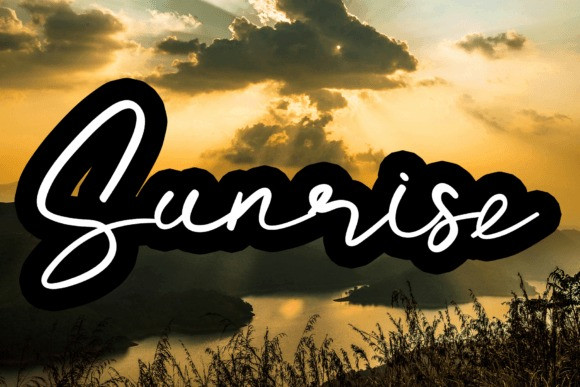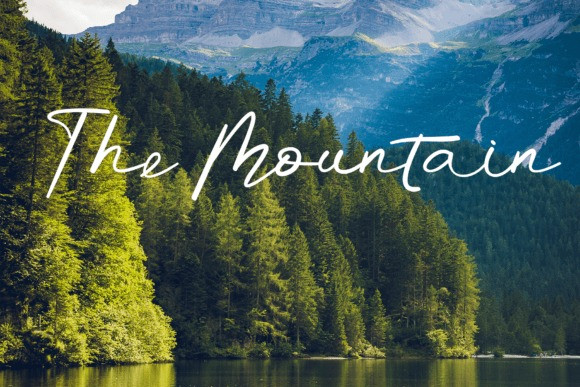
Handmade Summer Font
Handmade Summer Font is a sweet and friendly handwritten font. Fun and relaxed, this font is ideal for writing wedding invitations, cards, or any other design that might need a lovely touch!